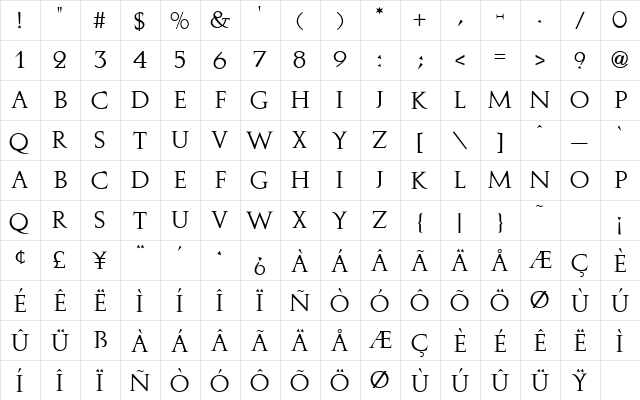
Eliza Regular Font Preview
Eliza Regular
Eliza Regular Font Details
Design Context for Eliza Typeface
Eliza takes a measured approach to typography — its balanced proportions and neutral character make it a reliable workhorse for both digital and print work.